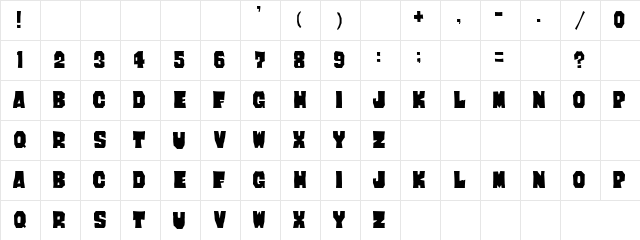
GIANtX Regular Font Preview
GIANtX Regular
Design Context for GIANtX Typeface
GIANtX is a composed and adaptable typeface that performs quietly and consistently across a wide range of design contexts.